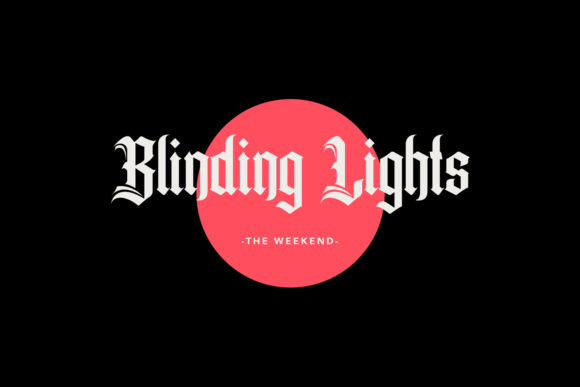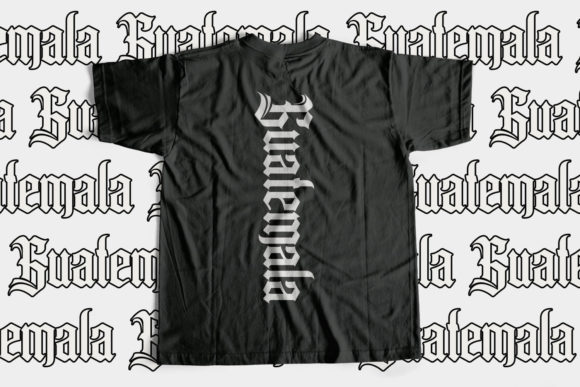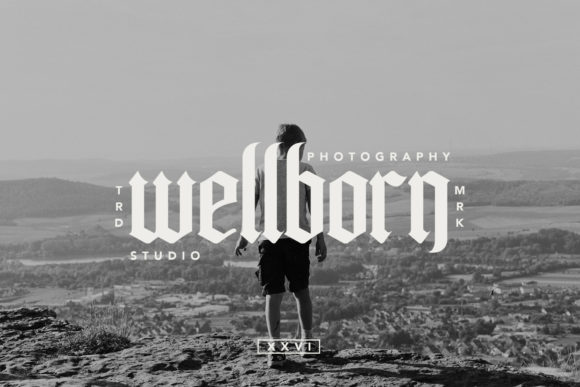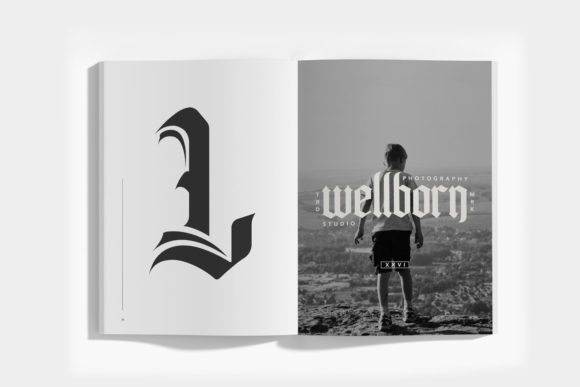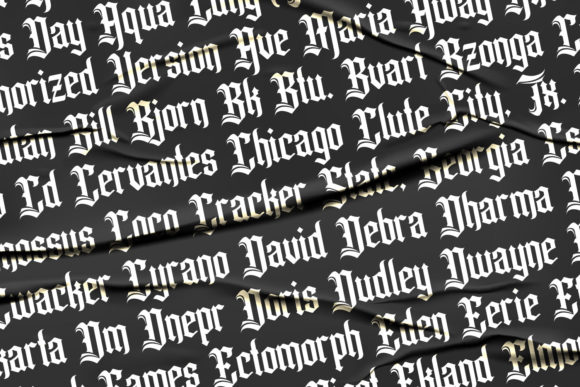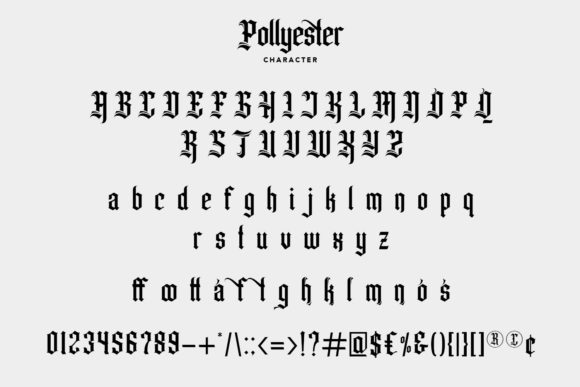
Introduction to Pollyester Font
As you’re brainstorming your next creative project, have you ever stumbled upon that one perfect font that makes your design idea pop? For designers, finding the right font can be the difference between a good design and a spectacular one. It’s that moment when you come across a font that speaks to you, and you know it’s the missing piece to your project.
One such font that’s sure to bring a smile to your face is the Pollyester Font. With its playfully nostalgic feel and incredibly distinct style, this blackletter font is a must-have in any designer’s toolkit. Its high quality and timeless aesthetic make it an invaluable resource for designers looking to add a retro touch to their work.
Key Features of Pollyester Font
- Designed with a modern aesthetic, perfect for graphic designers
- Unique characteristic: a bold, playful style with a touch of nostalgia
Honest Review: Pollyester Font
One of the standout features of Pollyester Font is its transparent background. This makes it incredibly versatile and easy to work with, whether you’re designing a logo, a website, or a social media graphic. The font itself is also very well-designed, with a unique and quirky aesthetic that’s perfect for adding some personality to your design projects.
One limitation of Pollyester Font is that it’s not as extensive as some other font families. There are only a few weights and styles available, which may limit its use in certain design situations. ⚠️
Overall, I’m really impressed with Pollyester Font. It’s a great design resource that’s perfect for designers who are looking for a unique and high-quality font to add to their toolkit. I highly recommend giving it a try! ✨
Pollyester Font
Tips for Getting the Most Out of Pollyester Font
To get the most out of the Pollyester Font, use it in creative ways, such as:
- Creating eye-catching headings
- Designing unique graphics
- Adding a personal touch to presentations
The Pollyester Font is ideal for:
- Branding and marketing materials
- Graphic design projects
Does the Pollyester Font have a transparent background?
Yes, the Pollyester Font has a transparent background, making it perfect for use on images or backgrounds with complex designs. The font’s transparent background allows you to easily layer it over other design elements without any issues. This feature is especially useful for designers who want to create visually appealing and intricate designs.